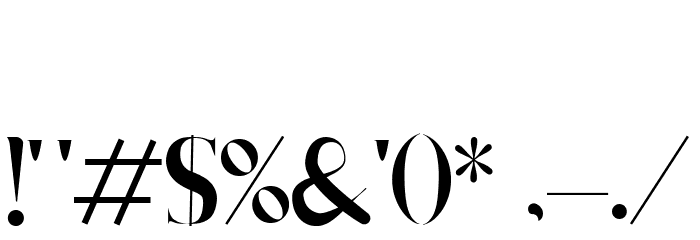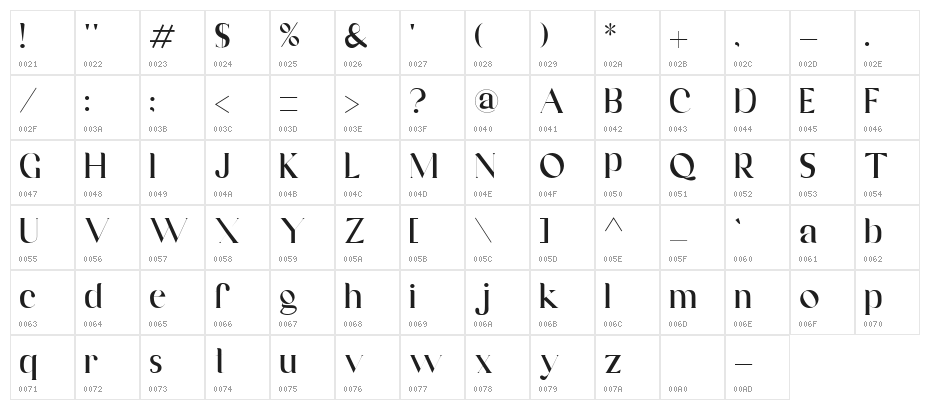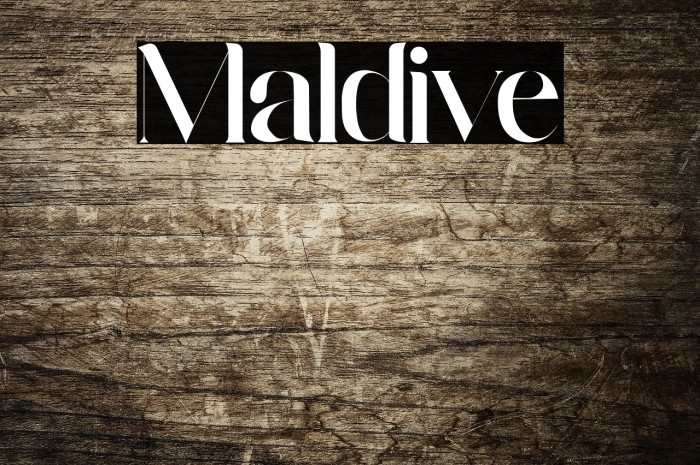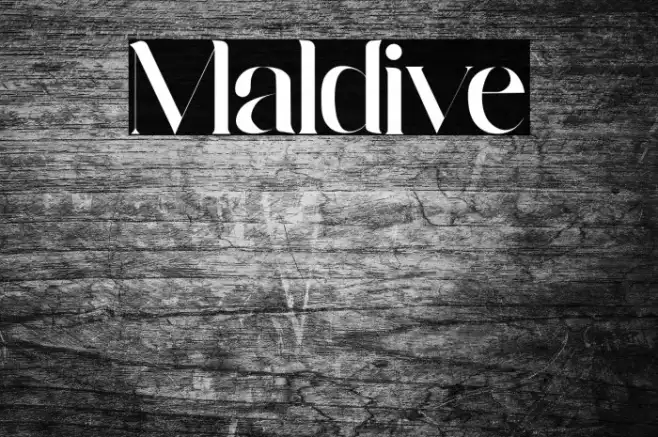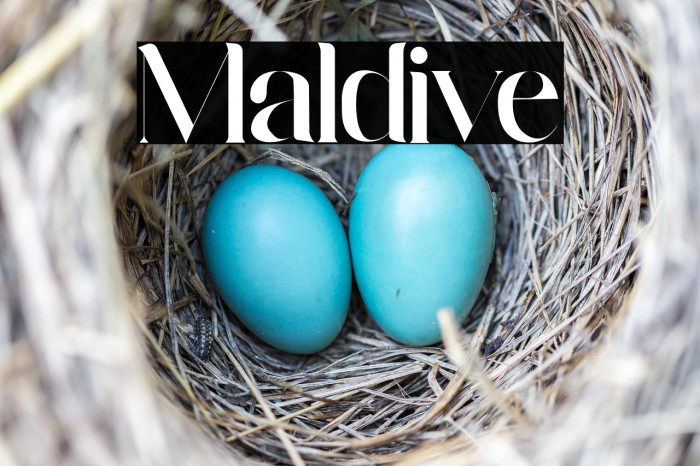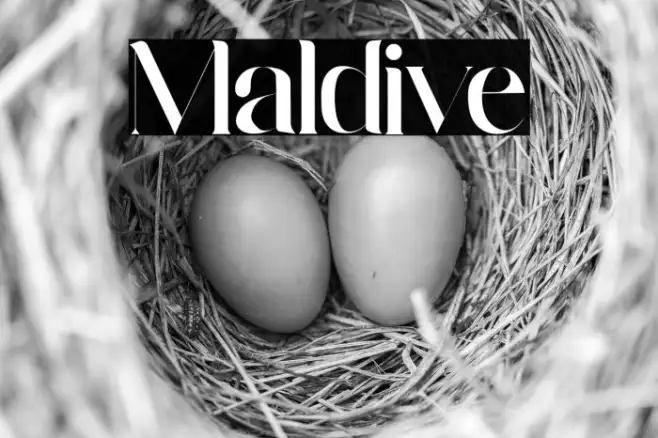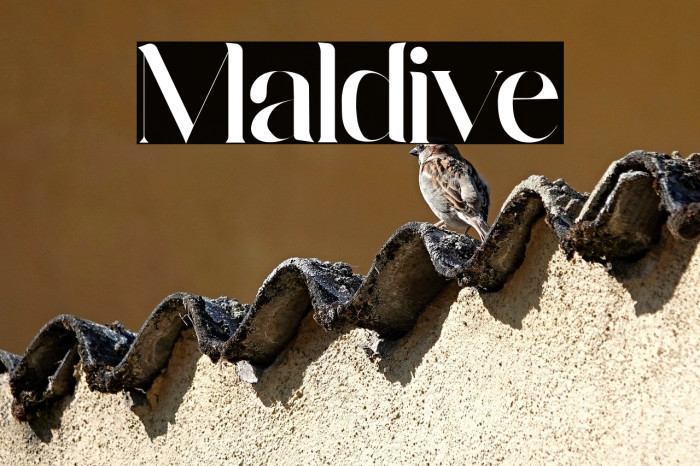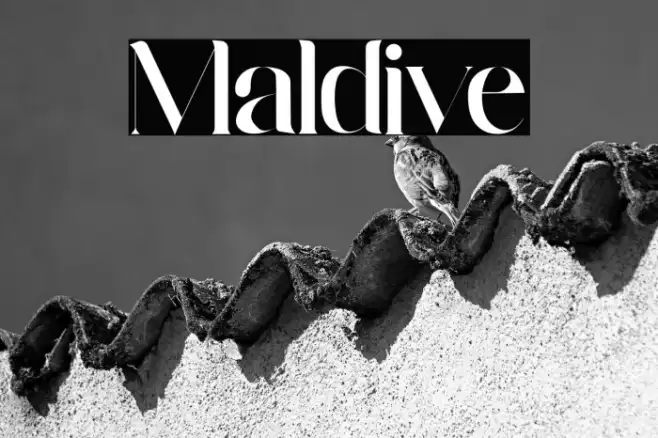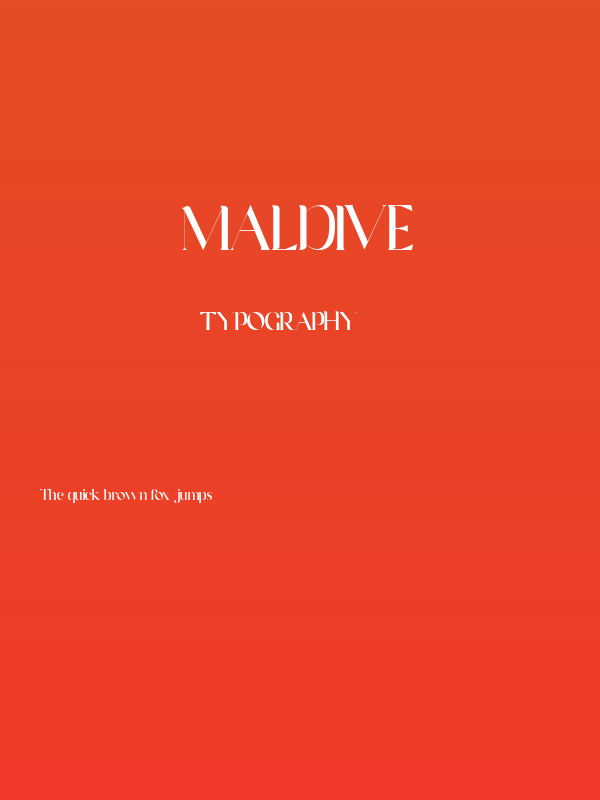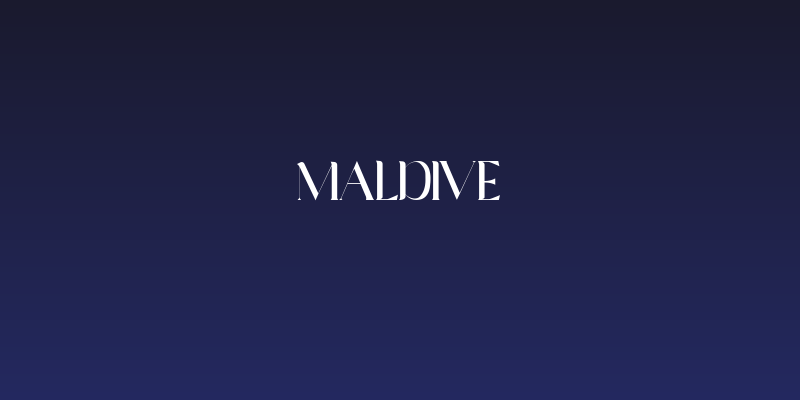
Maldive Font
Maldive Description
This font exhibits a modern and stylish design with a high contrast between thick and thin strokes, giving it a sophisticated and elegant appearance. The uppercase letters are tall and slender, while the lowercase letters maintain a consistent style with unique curves and angles. The font features sharp serifs and a distinct geometric influence, making it stand out in any design. The numerals and special characters are crafted with the same attention to detail, ensuring a cohesive look across all text elements. Its overall aesthetic is both contemporary and timeless, suitable for a variety of design applications.
| Proposed Projects | Ideal for luxury branding, editorial design, fashion magazines, and high-end product packaging. |